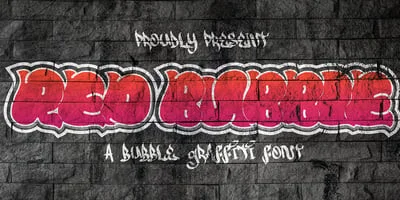
Red Bubble Graffiti Font
Red Bubble Graffiti Font is perfect for urban street art galleries, hip-hop culture branding, underground music venue promotions, street wear fashion labels, graffiti art workshops, and vibrant youth culture campaigns. Its explosive character makes it ideal for street artists, urban fashion designers, hip-hop record labels, graffiti supply stores, and any application requiring bold typography that conveys street authenticity, urban rebellion, and the dynamic energy of bubble letter graffiti and underground artistic expression.
Red Bubble Graffiti Font is exciting because it captures the explosive energy and rebellious spirit of classic bubble letter graffiti through boldly inflated letterforms that burst with the same vibrant intensity as spray-painted street art. Its bubble proportions and graffiti-inspired details evoke the adrenaline rush of urban artistic creation and the bold visual impact that makes graffiti an unmistakable form of street communication, making it perfect for brands celebrating authentic urban culture. The font's graffiti character transforms communications into street art statements.
Red Bubble Graffiti Font family includes street-ready weight variations typically featuring Regular, Bold, and Black options with bubble styling that maintains graffiti authenticity. The family often incorporates street art symbols, urban elements, and graffiti characters designed for underground culture applications, providing designers with comprehensive tools for creating authentic, graffiti-focused typographic compositions.
When selecting urban street culture typography solutions, Red Bubble Graffiti Font represents an exceptional choice for street art and hip-hop projects. This explosive typeface brings instant graffiti authenticity to any design, making it invaluable for street artists, urban brands, and hip-hop culture organizations celebrating underground artistic expression. Whether you're developing street art exhibition branding, creating hip-hop music promotional materials, or designing urban fashion campaigns, Red Bubble Graffiti Font provides the street energy and graffiti authenticity essential for commanding attention in today's urban culture marketplace.